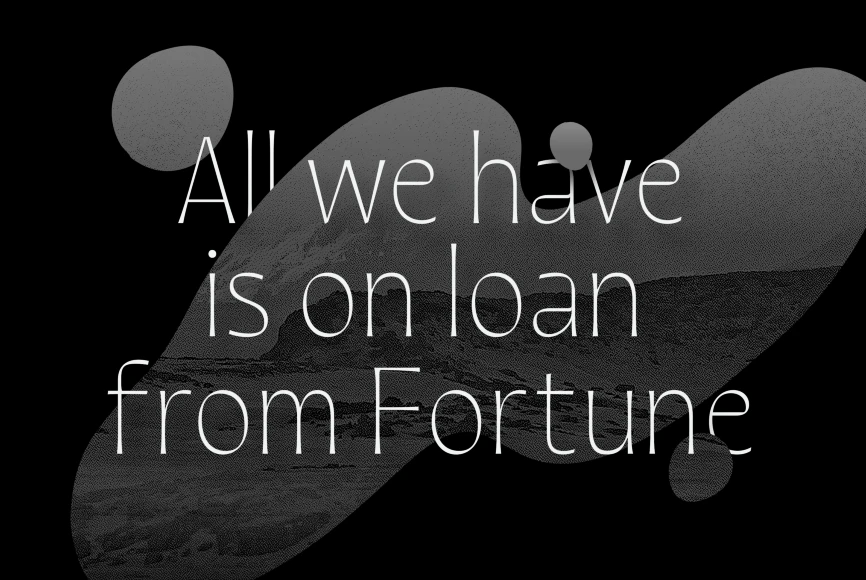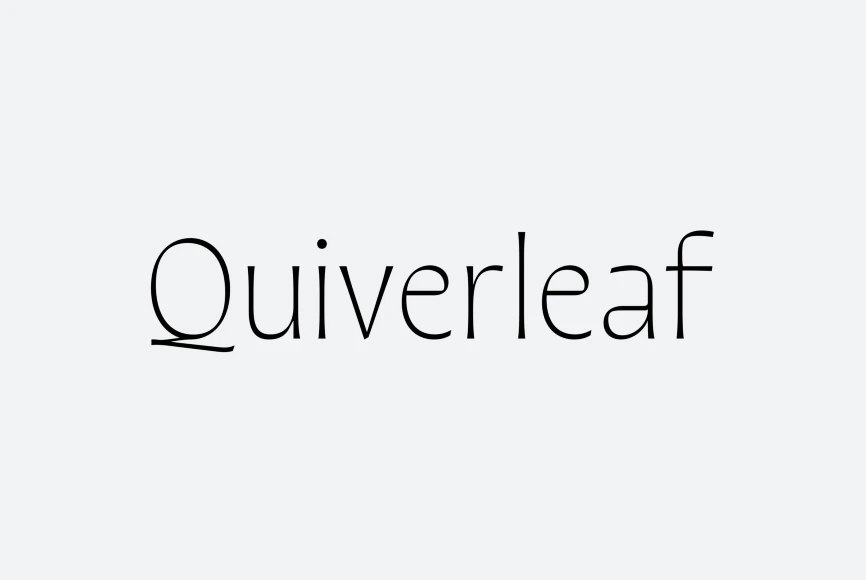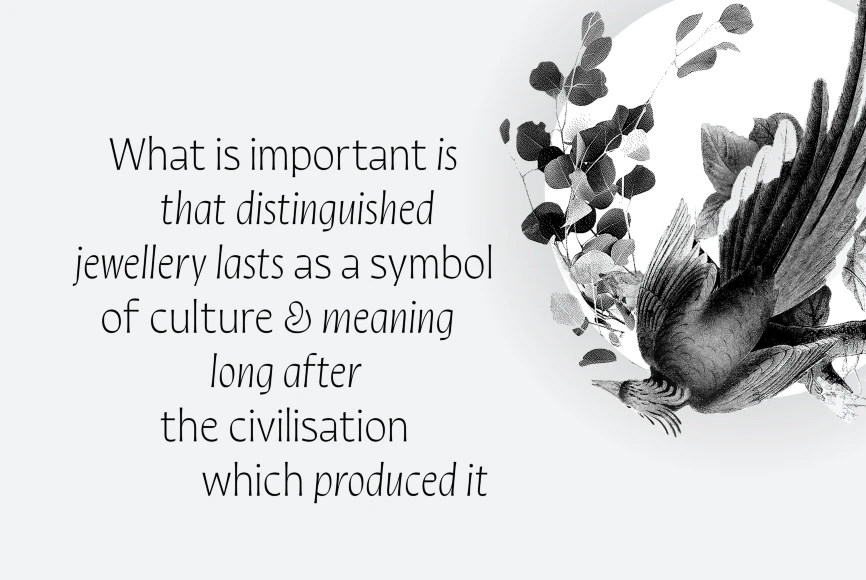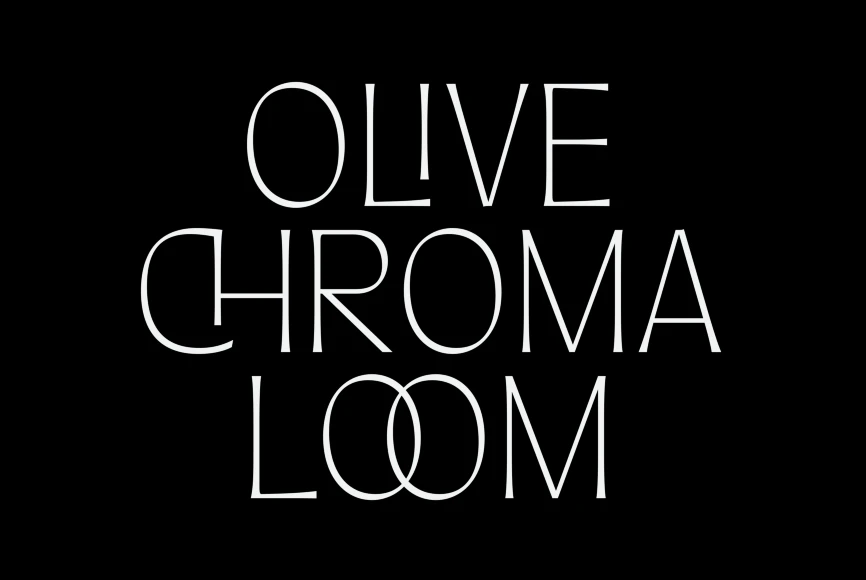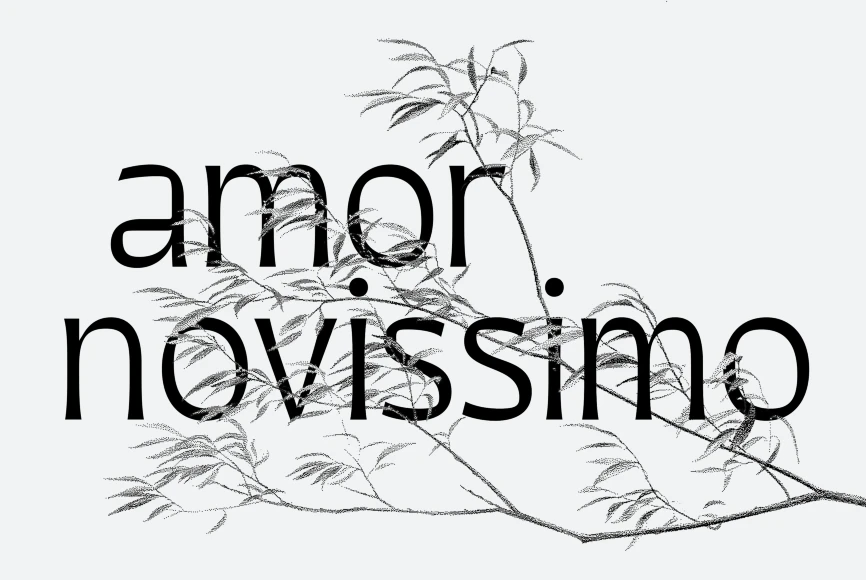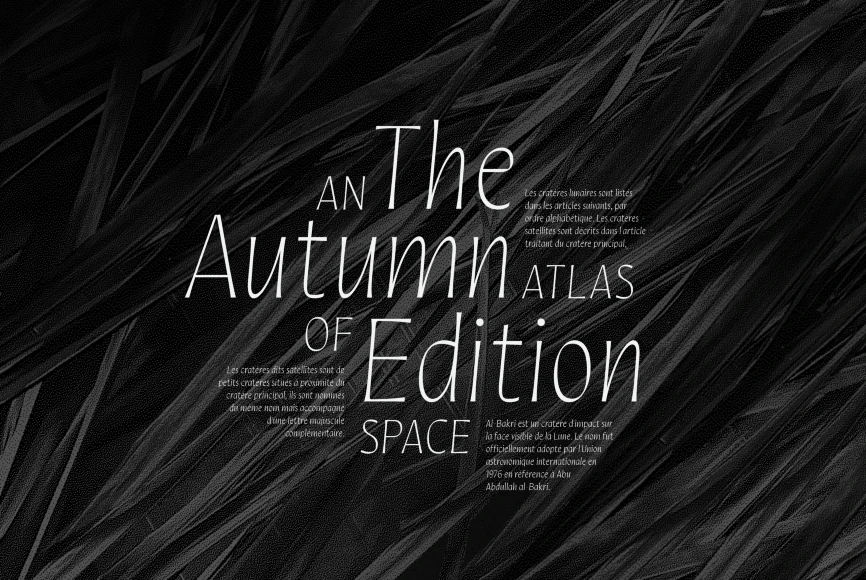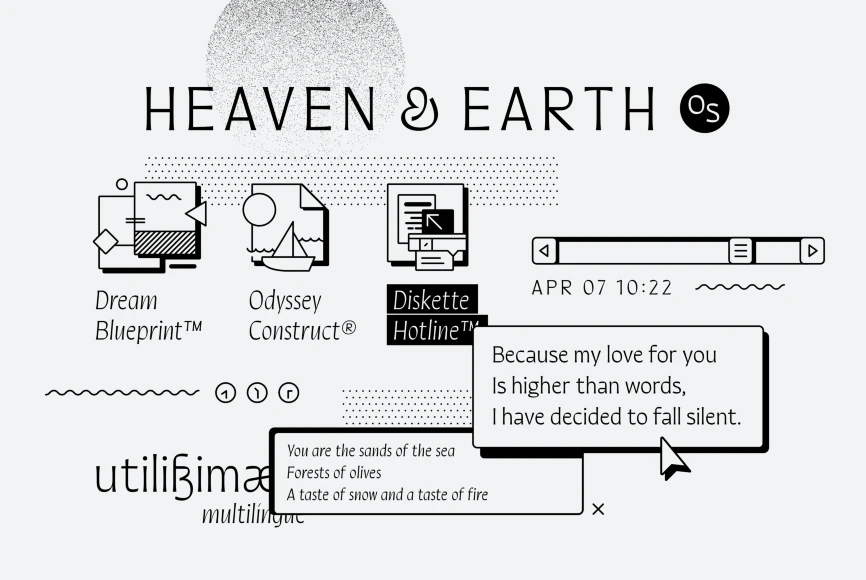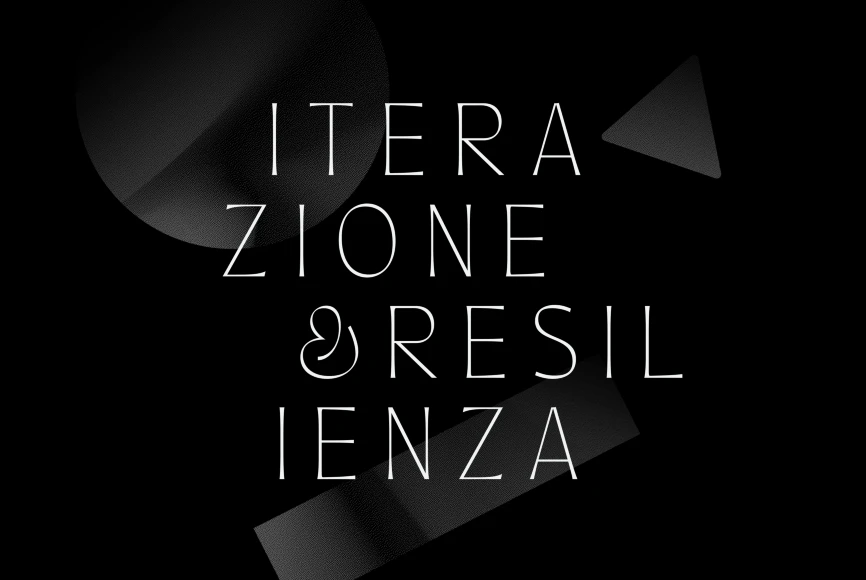
Quiverleaf
By Connary Fagen
With the graceful movement of a ribbon, Quiverleaf CF glides effortlessly from letter to letter. Five weights – from a delicate thin to a hearty extra bold – combine with striking italics and wide language support for a well-rounded and expressive typeface. Quiverleaf’s versatile design allows for both beautiful text and airy headlines.